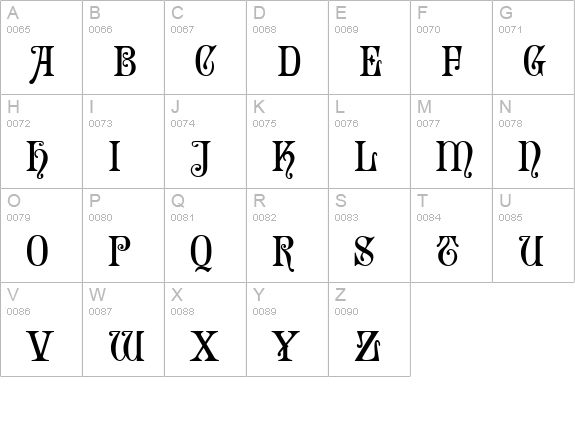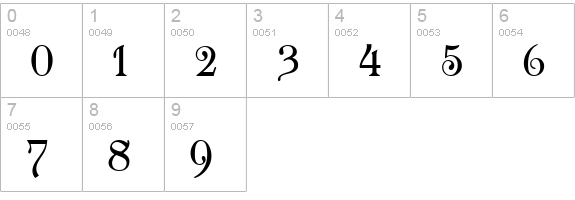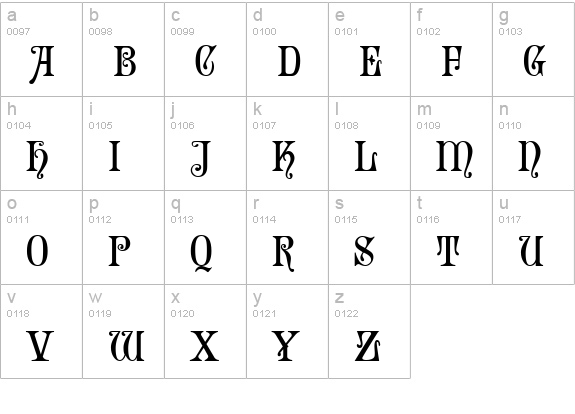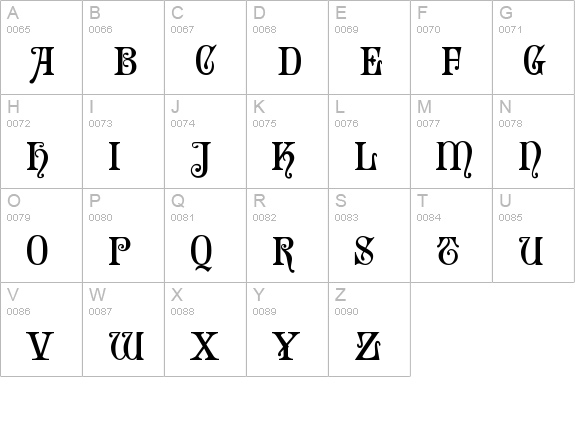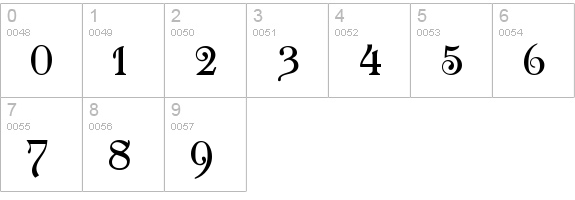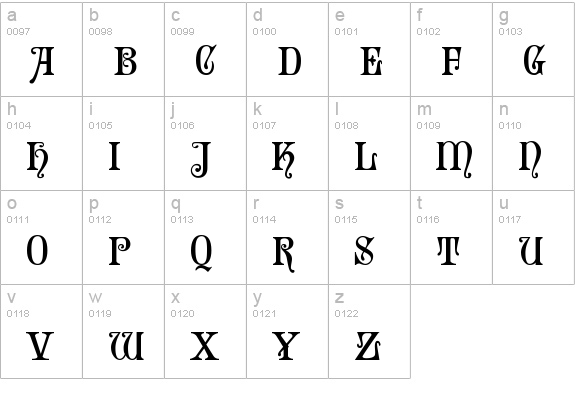
Sophie MF Font Details
Sophie MF font is a versatile and elegant typeface that exudes sophistication and charm. With its delicate swirls and graceful curves, this font is perfect for adding a touch of luxury to any design project. Whether you're creating wedding invitations, branding materials, or social media graphics, Sophie MF font will elevate your work to the next level. The best part? Sophie MF font is completely free to download at FontsMarket.com. This means that you can add this stunning typeface to your collection without breaking the bank. Don't miss out on the opportunity to enhance your designs with the timeless beauty of Sophie MF font. Download it today and let your creativity shine!